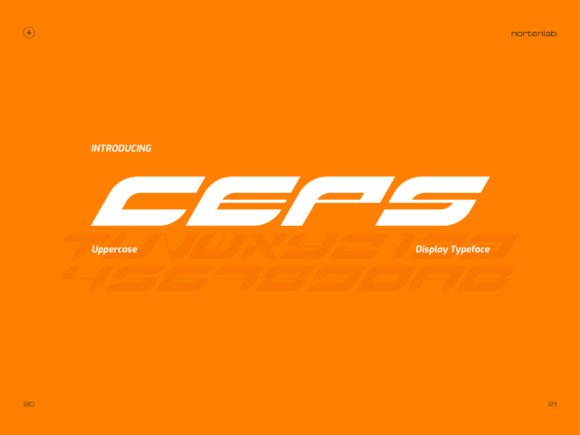
Introduction to Ceps Font
Ceps is a cool, bold and modern-styled display font.
This font is ideal for web designs, business cards, or pretty much anything else that requires a futuristic touch .
Ceps Font offers exceptional quality and versatility, making it a valuable addition to your design toolkit. Whether you’re creating for personal projects or commercial use, Ceps Font delivers professional results.